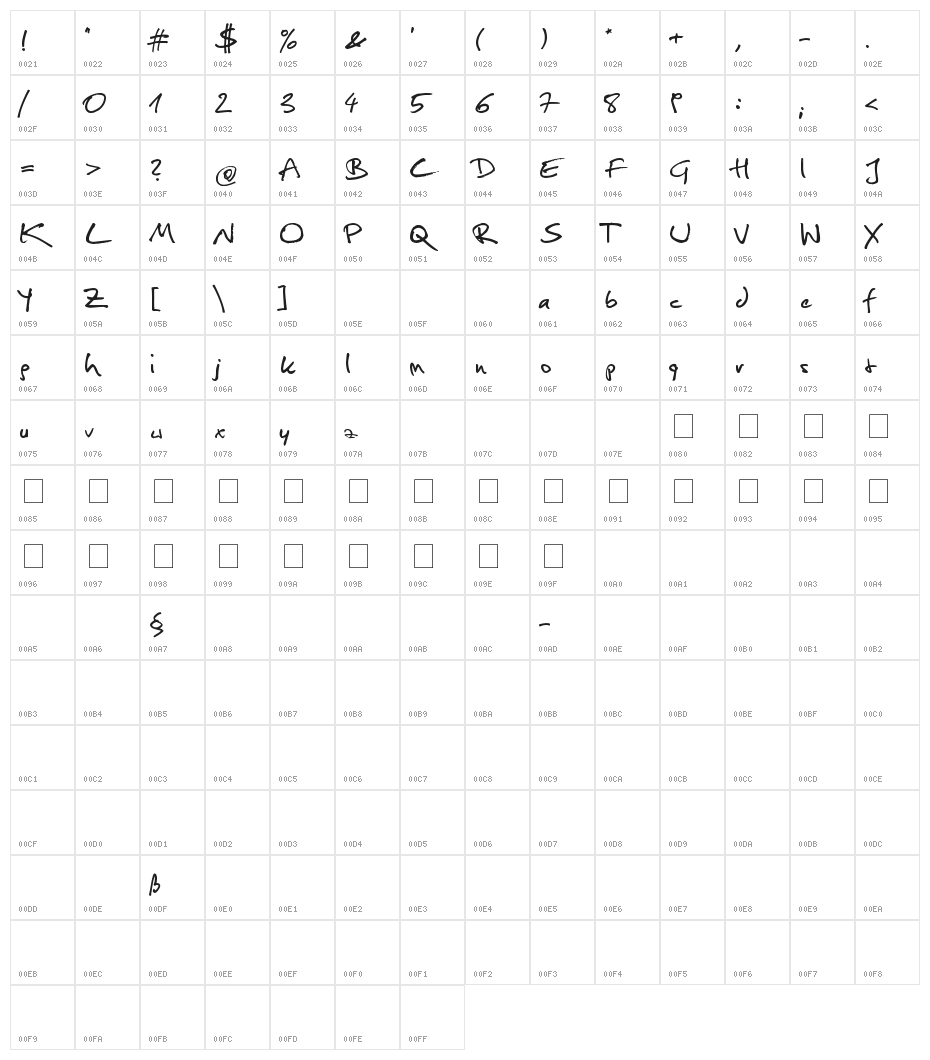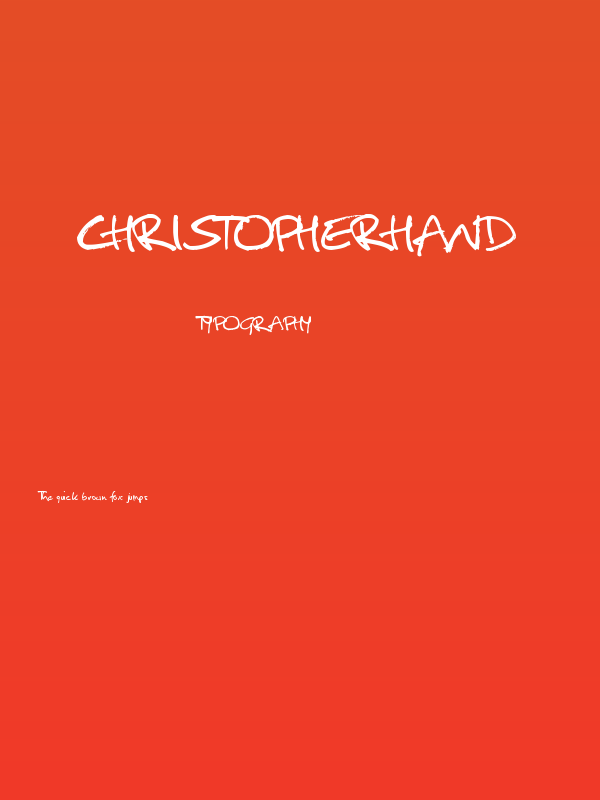
Christopherhand Font
| Gesamtstil | Casual, Informal |
| Anwendungsfall | Logos, Invitations, Greeting Cards |
| Vorgeschlagene Projekte | Ideal for personal invitations, greeting cards, informal branding, and creative projects that benefit from a personal, handwritten touch. |